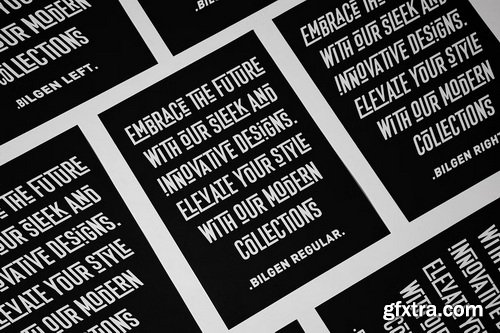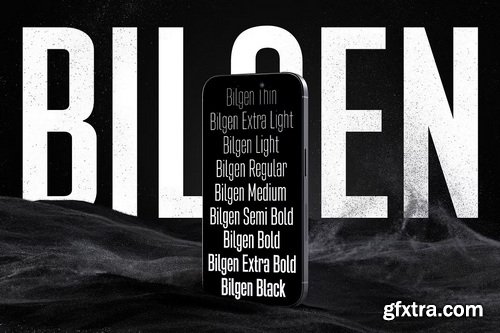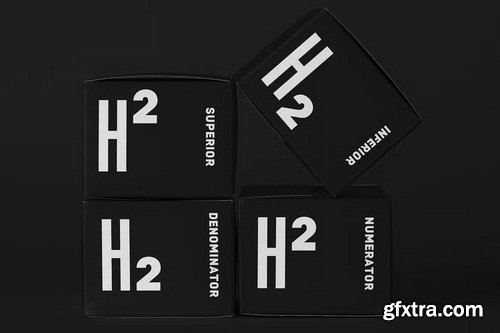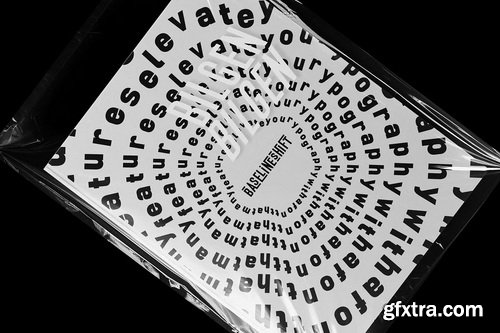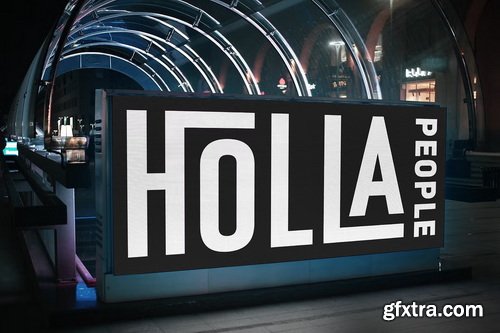
CreativeMarket - Bilgen Geometric Sans
- Introducing Bilgen, a modern and elegant typeface designed to elevate your designs. With 27 font families ranging from thin to black, this typeface offers a wide range of weights to suit any project. Its unique features include interlock, alternates, ligatures, small caps, numerator, denominator, and baseline shift, providing you with endless creative possibilities. Designed in a condensed style, this typeface is perfect for modern designs. Whether you're working on branding, editorial design, or advertising, Bilgen is your perfect companion. Support for 66 languages ensures that your message is communicated effectively to a global audience. Add a touch of sophistication to your designs with Bilgen.